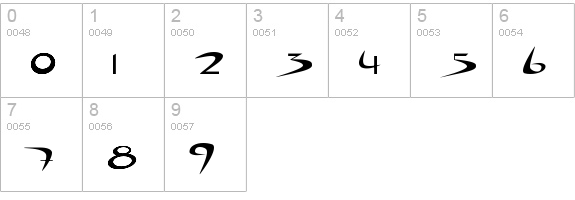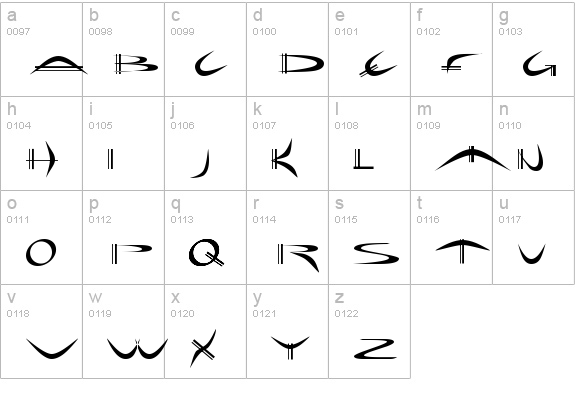
Holiday hardcore Bold is a strong, high-contrast variant in the Holiday typeface family \xE2\x80\x94 well suited to headlines, attention-grabbing titles, and strong calls-to-action.
Introducing Holiday Hardcore Bold font, a striking and dynamic typeface perfect for making a bold statement in your designs. With its strong and commanding presence, this font is sure to catch the eye and captivate your audience. Holiday Hardcore Bold is not only visually appealing but also versatile, making it suitable for a wide range of design projects. And the best part? Holiday Hardcore Bold font is available for free download at FontsMarket.com! Simply head over to the website and grab this powerful font to enhance your creative projects. Whether you're working on posters, flyers, branding, or any other design work, Holiday Hardcore Bold font will bring a touch of boldness and excitement to your creations. Download it now and let your designs stand out with this impressive typeface.